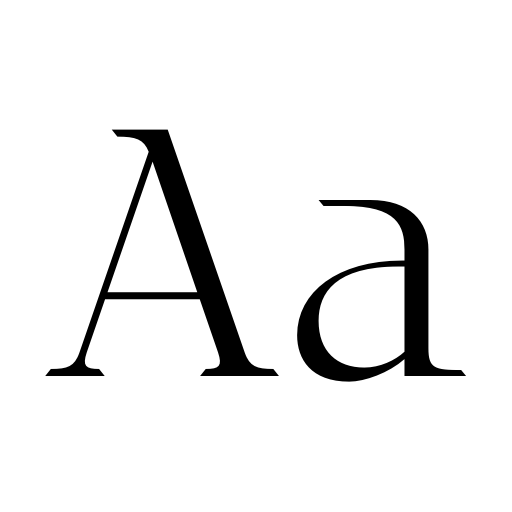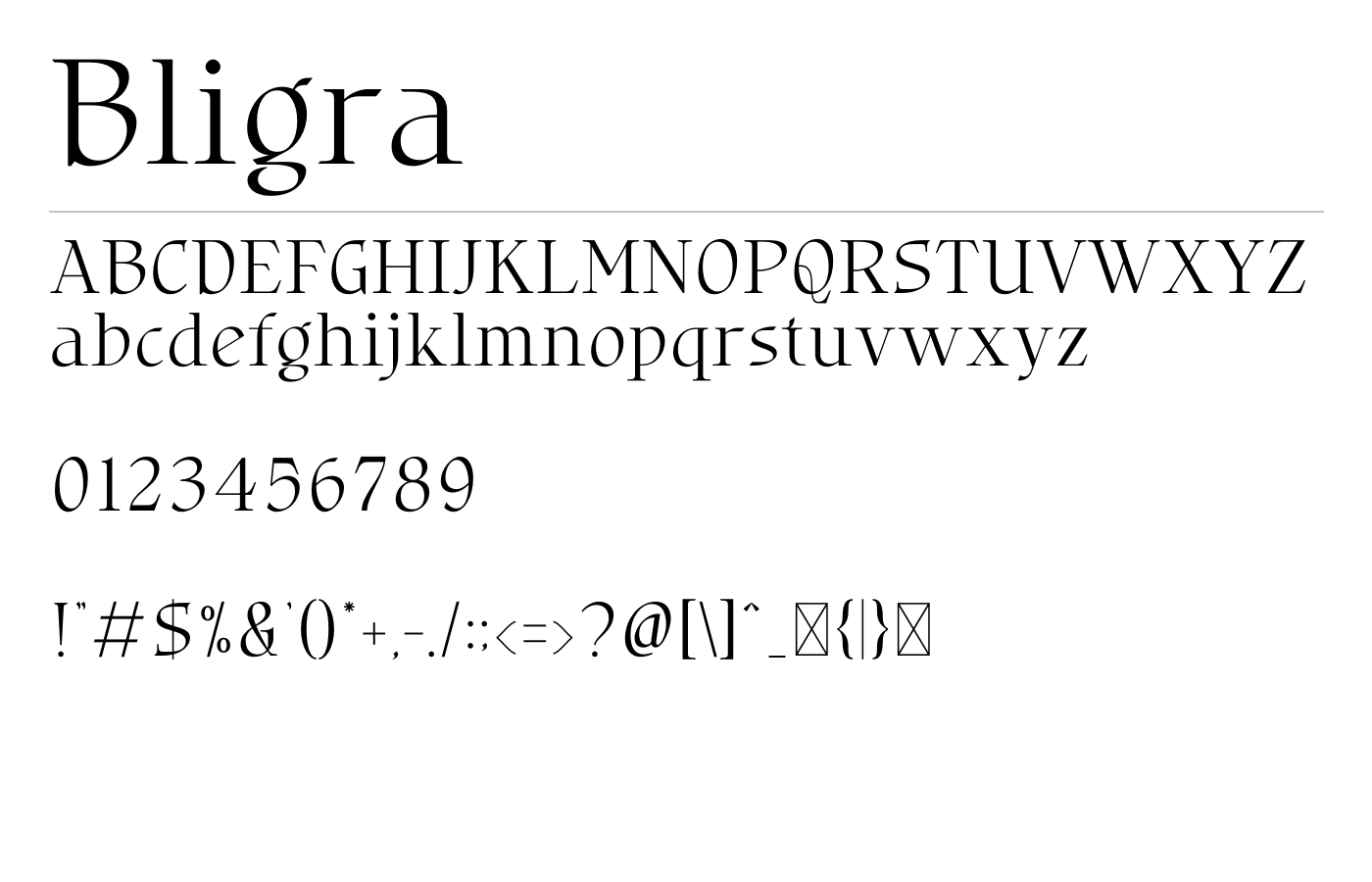
Bligra is an elegant serif font with a refined, modern touch, characterized by its high contrast strokes and delicate serifs that lend a sophisticated and tasteful appearance. Its slender letterforms with unique details, such as the single-story 'g' and distinctive tail on the 'Q', make it ideal for luxury branding, editorial headlines, and stylish packaging, where a classic yet contemporary feel is desired. The font's graceful and airy design enhances readability while conveying a sense of refinement and exclusivity.
Bligra Font